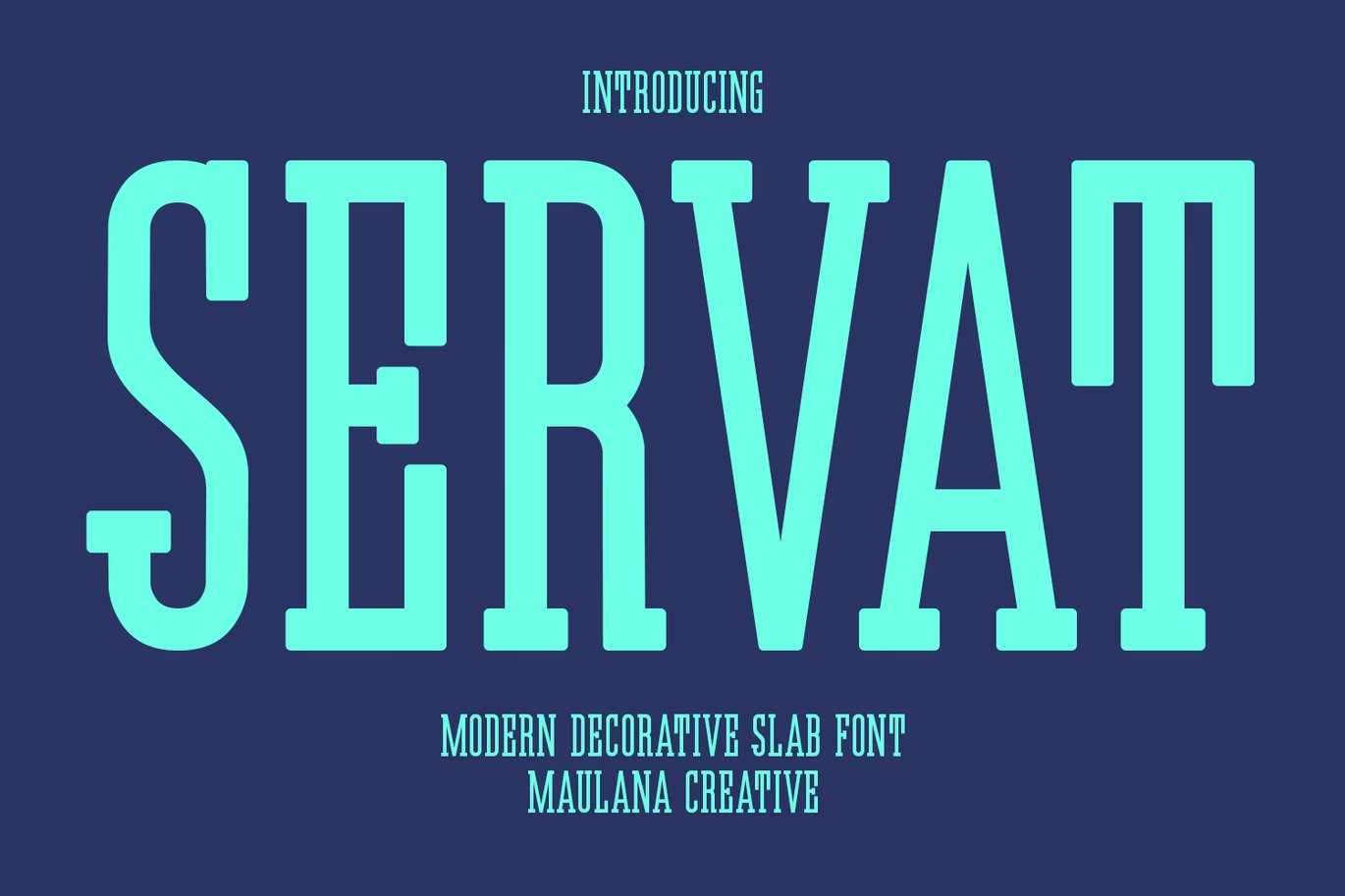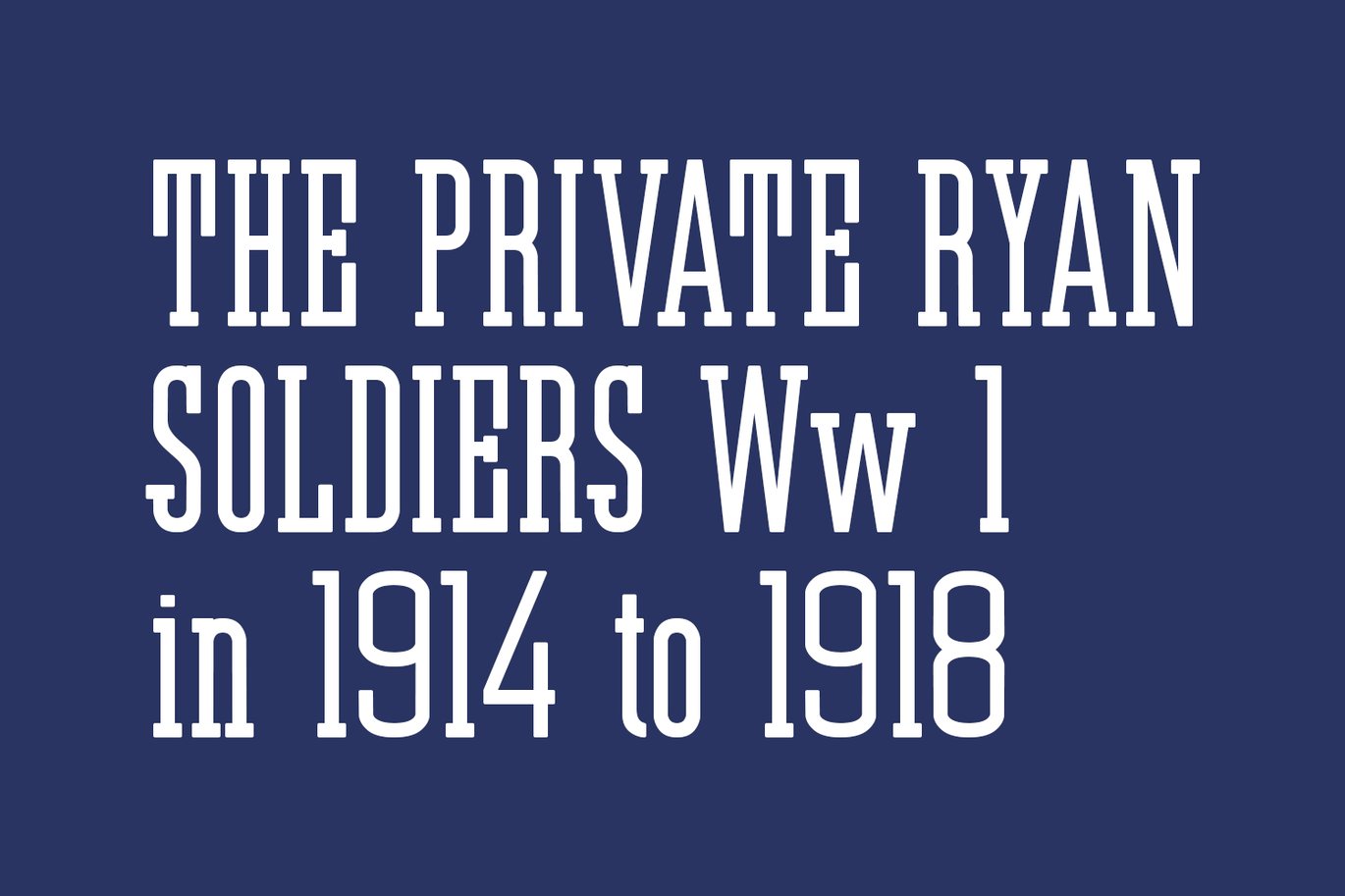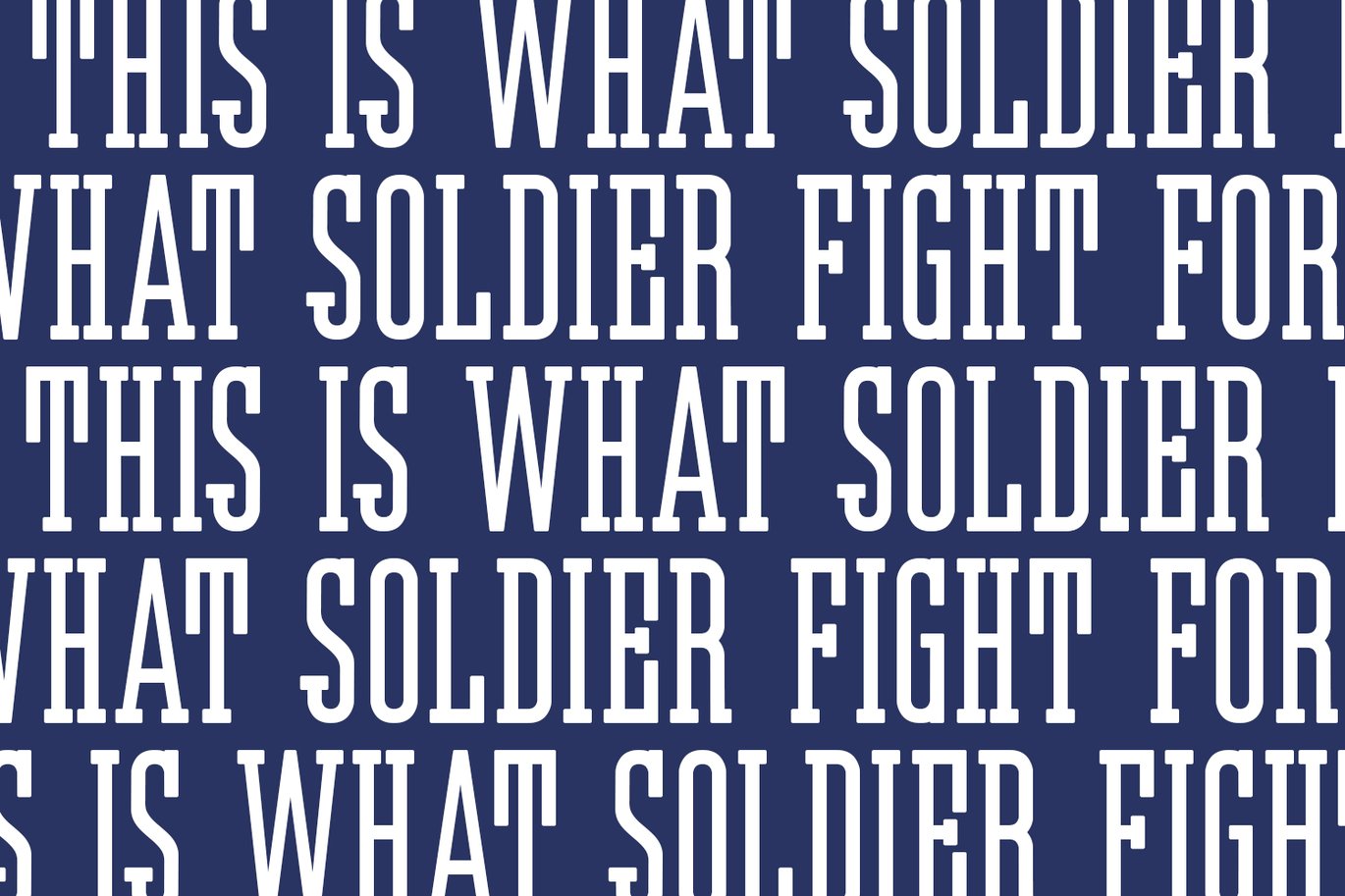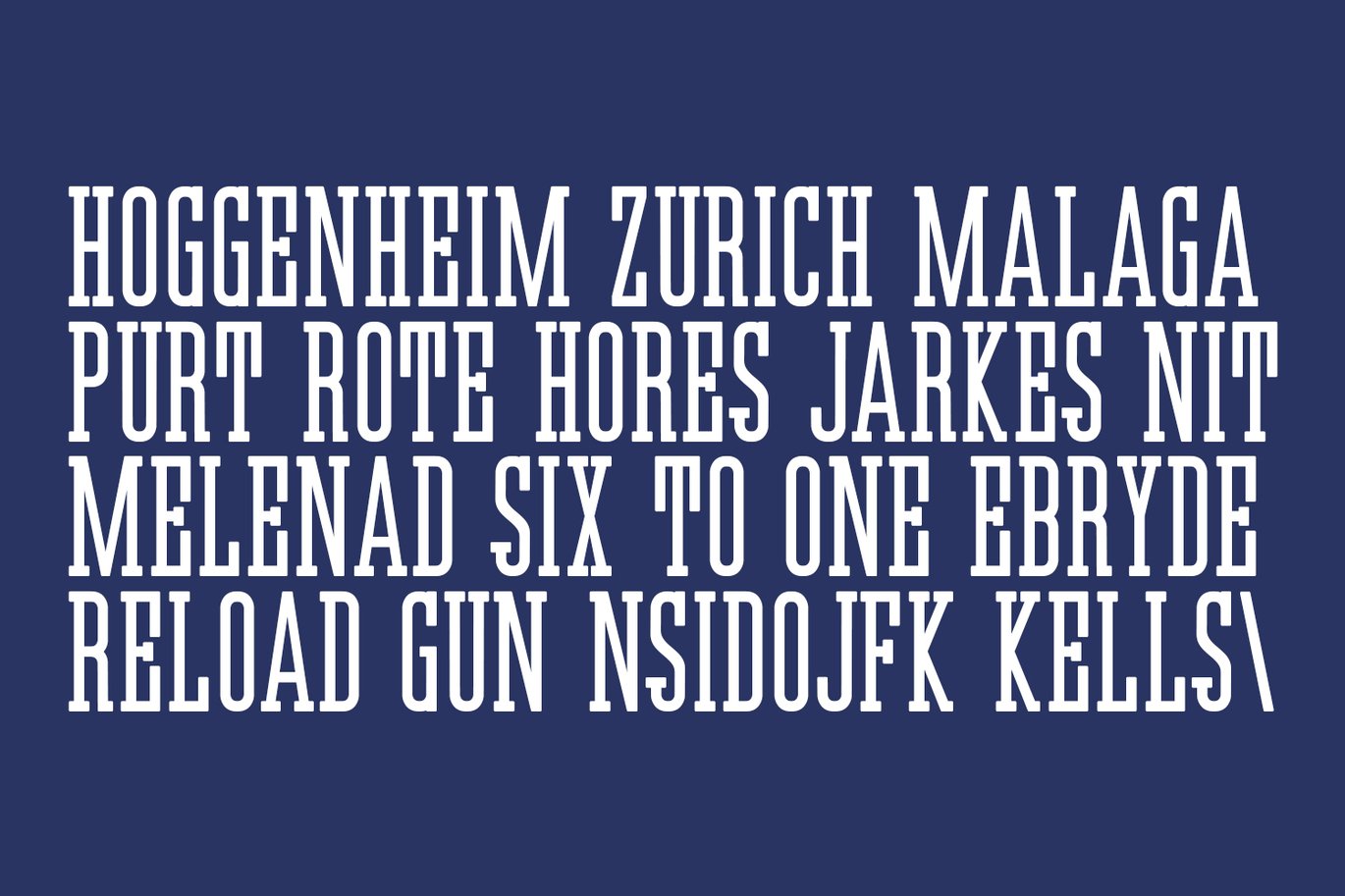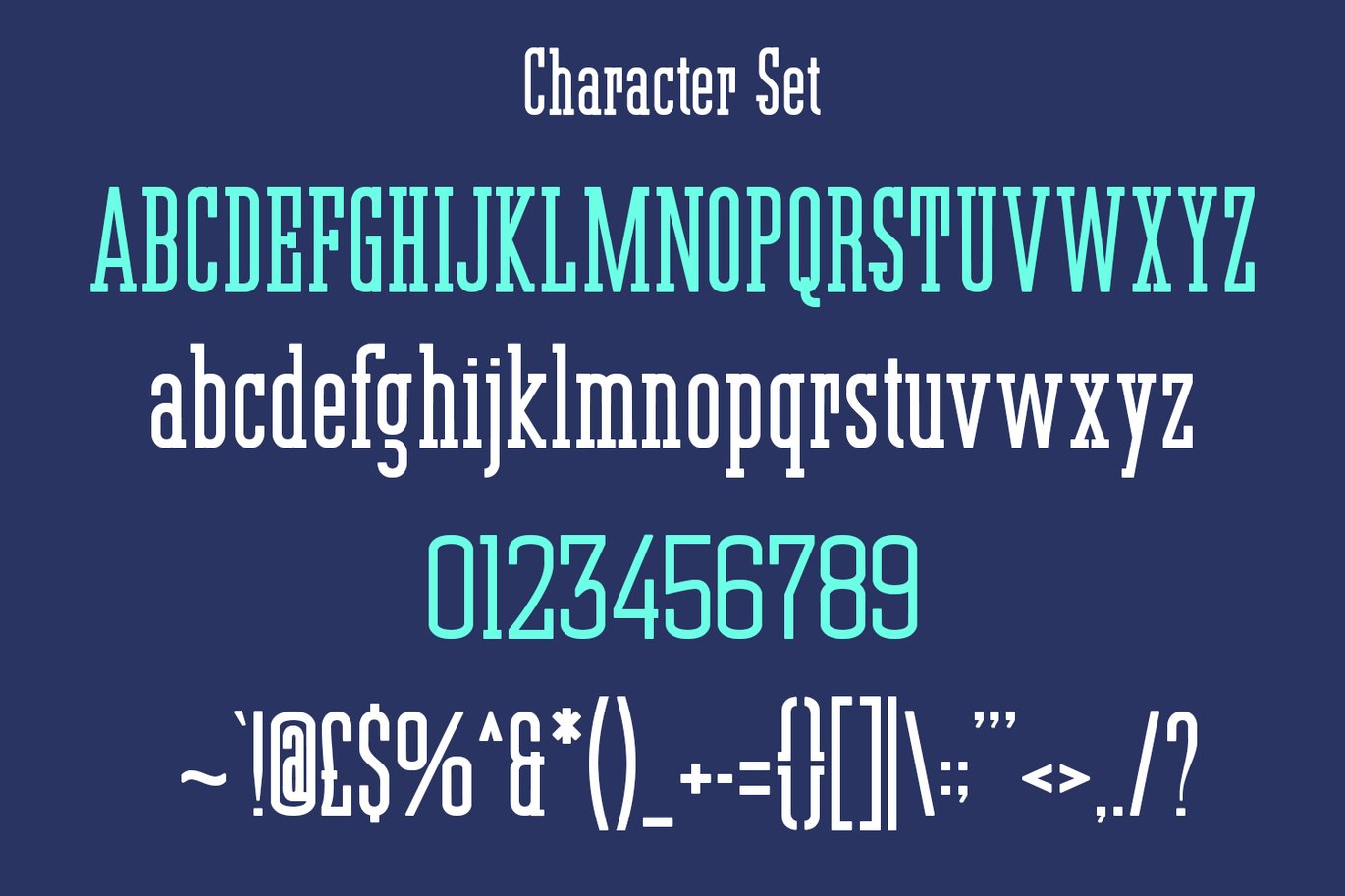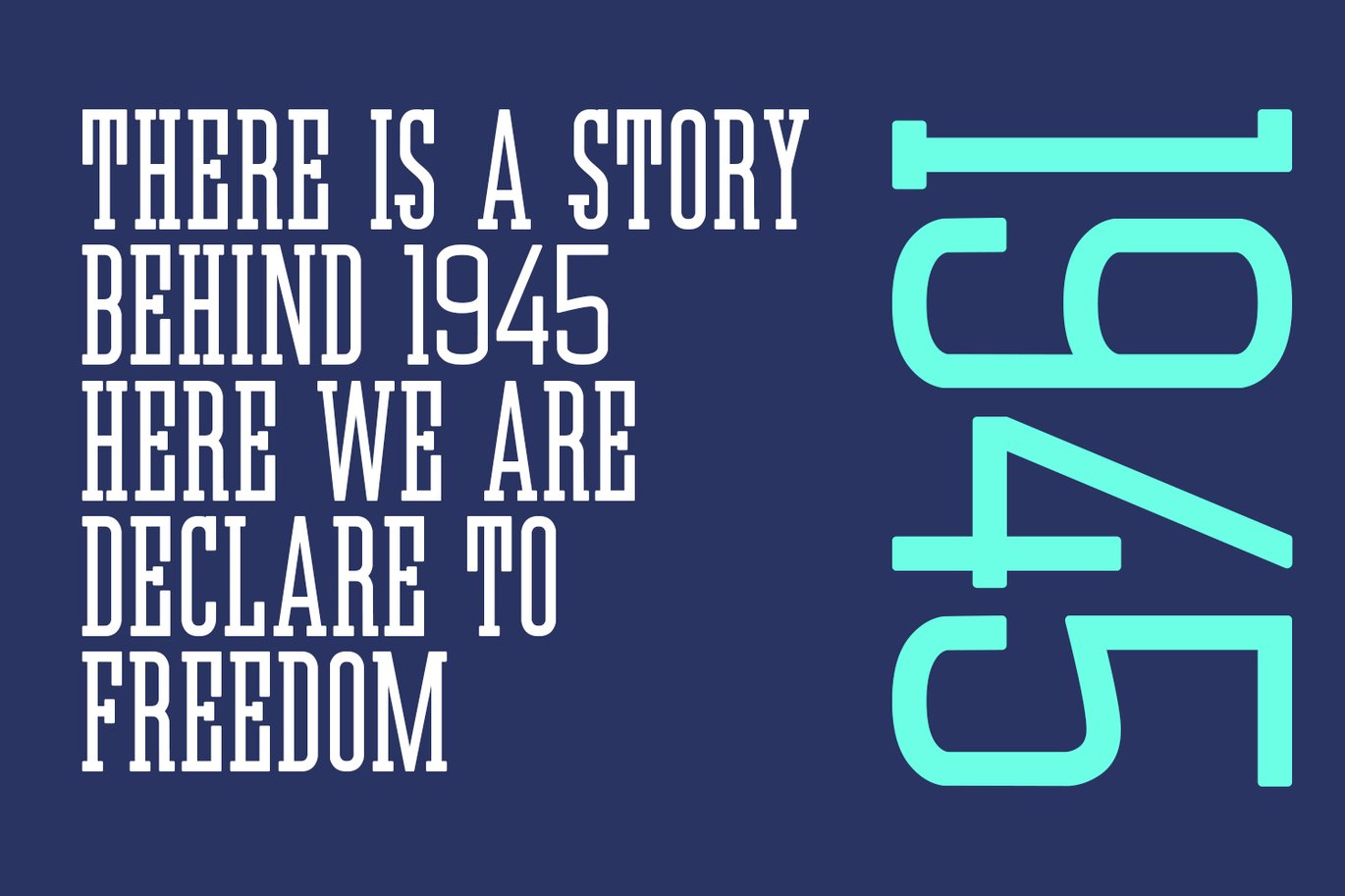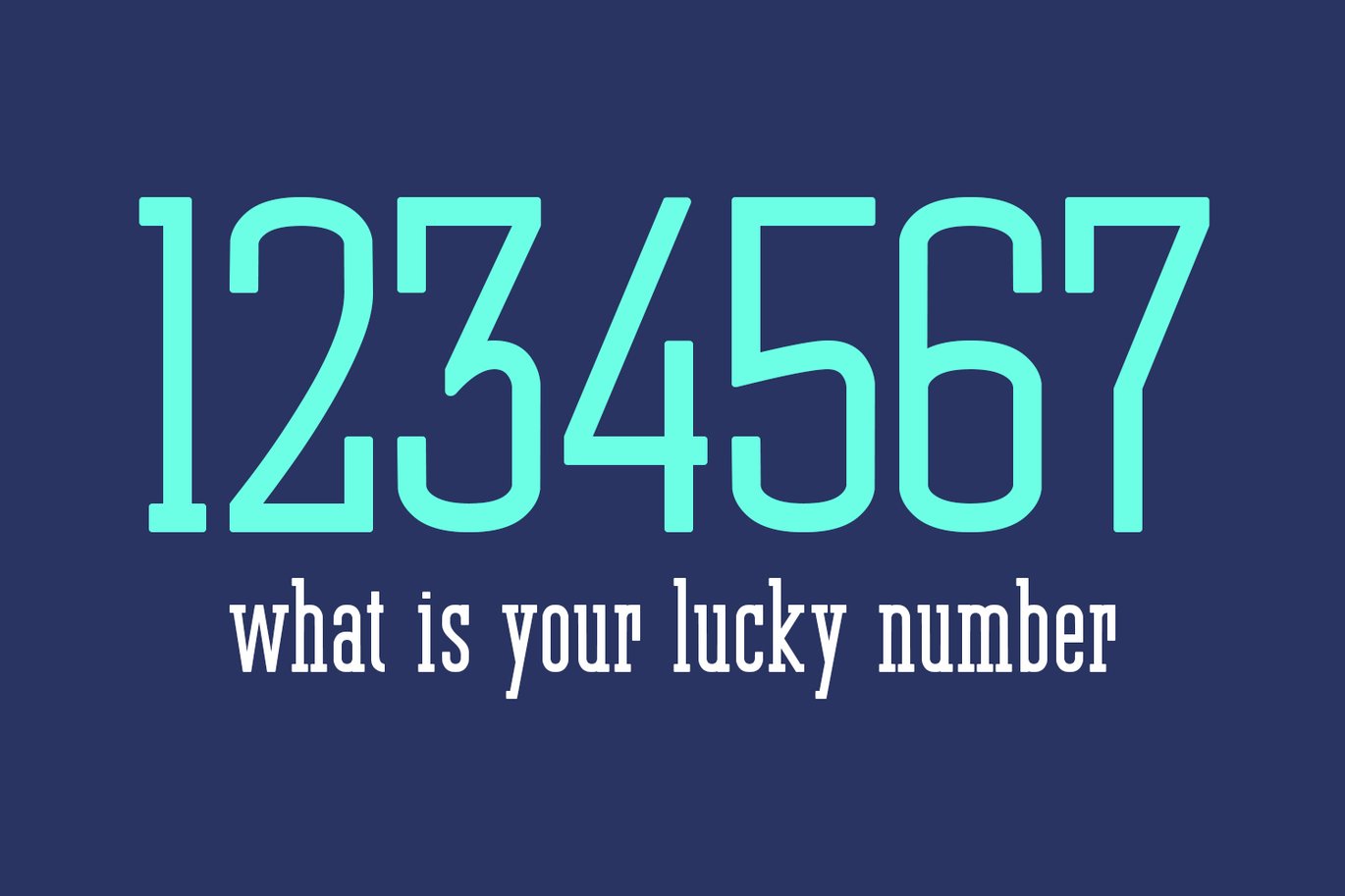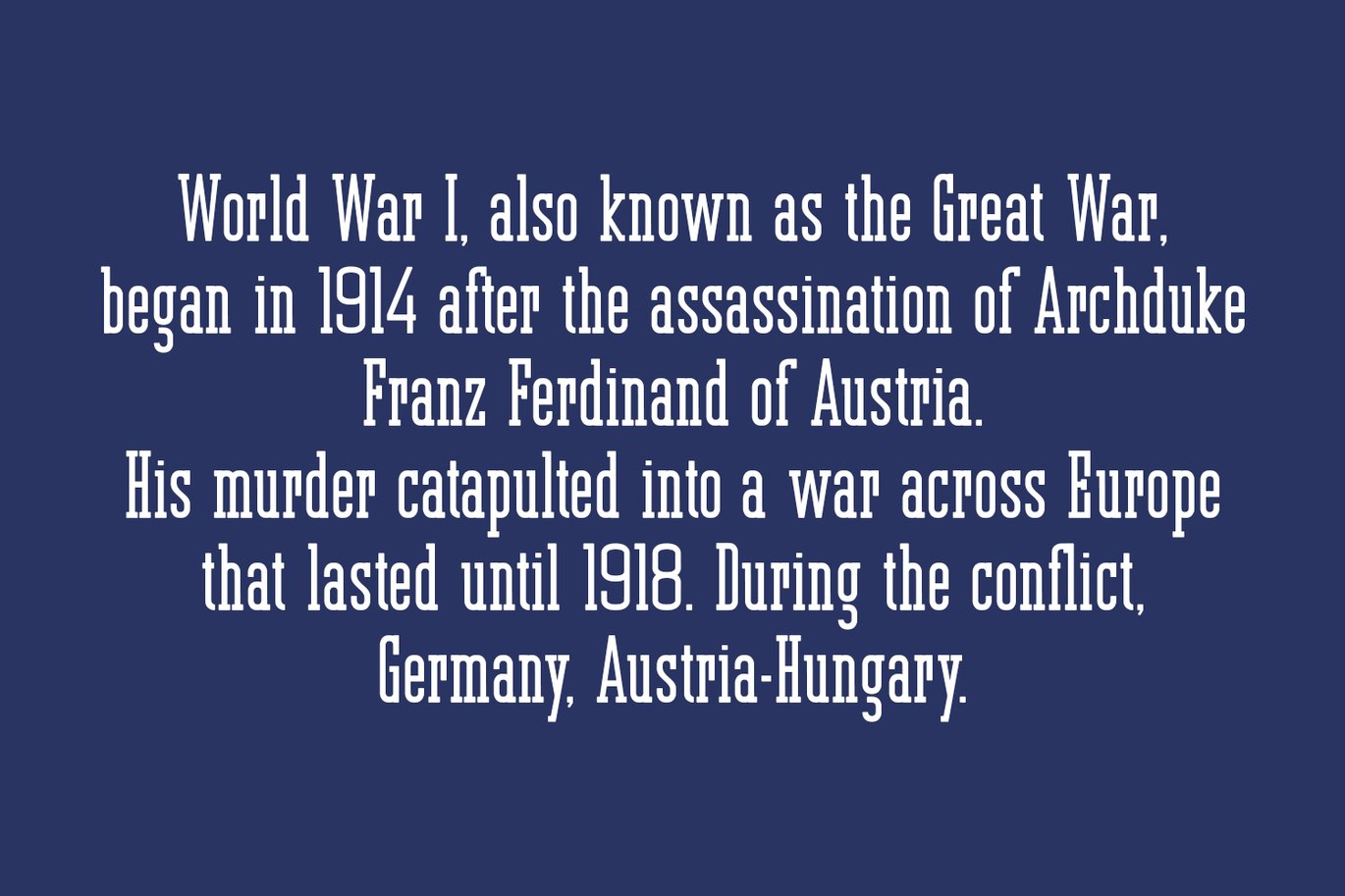
Servat Modern Decorative Slab Serif Font
Servat is a retro semi slab serif font. With medium stroke, fun character with a bit of ligatures and alternates. To give you an extra creative work. Servat font support multilingual more than 100+ language. This font is good for logo design, Social media, Movie Titles, Books Titles, a short text even a long text letter and good for your secondary text font with sans or script. Make a stunning work with Servat font.